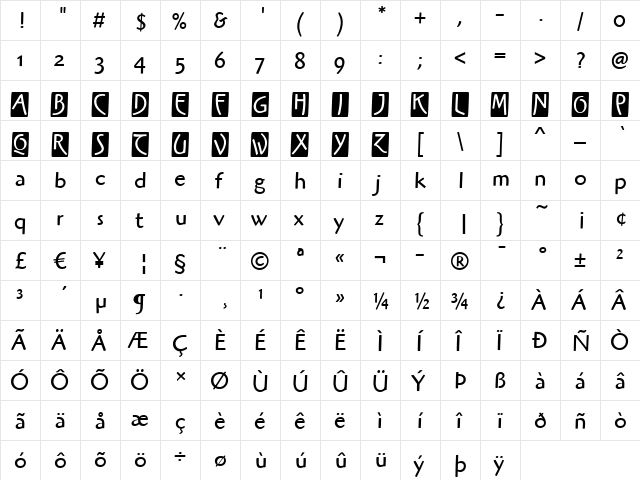
HighlanderITC Book
Design Context for HighlanderITC Typeface
HighlanderITC takes a measured approach to typography — its balanced proportions and neutral character make it a reliable workhorse for both digital and print work.